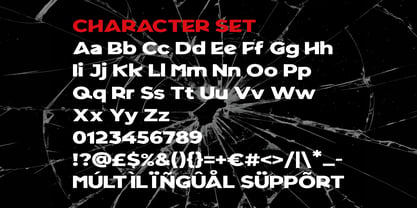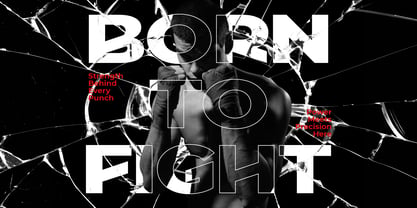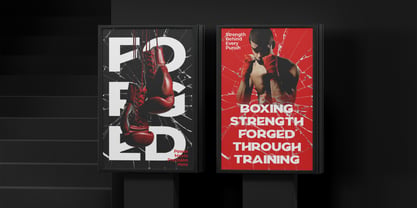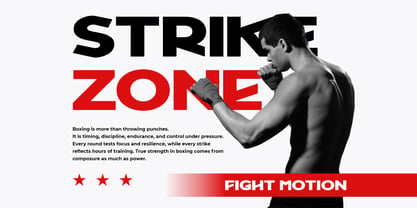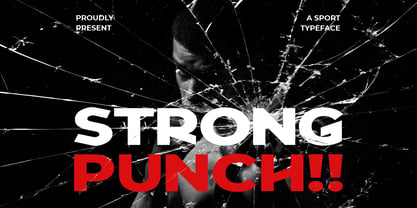
Strong Punch
La familia tipográfica Strong Punch fue diseñada por Yesie Erma Yunita y publicada por Shanaf. Strong Punch contiene 1 estilos. Más información sobre esta familia
Strong Punch Sport Font carries a heavy athletic voice with wide letters, sharp cuts, and forward motion. The font looks solid, loud, and competitive, with angled details that add speed and impact. Its thick structure helps short words stand out in logo design, gym branding, fight posters, and boxing event titles. Designers can use it for arena graphics, match promotion, training ads, fitness banners, magazine covers, stickers, and product labels. The style fits boxing clubs, martial arts studios, sport brands, and performance-focused campaigns.
This font works beyond boxing and punch-themed visuals. It also supports wider sport branding for fitness centers, training programs, tournament posters, energy drink labels, supplement packaging, and athletic product campaigns. Strong Punch Sport Font gives every title a confident rhythm for projects that need strength, discipline, and pressure. The uppercase and lowercase forms feel compact yet readable. Numbers and punctuation also help designers build complete layouts for schedules, scores, price tags, and event details.
Use this font when your project needs power without losing clean structure. It fits logo marks, headline systems, poster titles, advertising layouts, book covers, social media graphics, and website hero text. The strong shapes bring a direct tone for fight nights, gym launches, coaching brands, and action campaigns. It also works for games, film titles, sports magazines, cards, and motivational quotes. Multilingual support gives the font wider use across global sport, fitness, and entertainment projects.